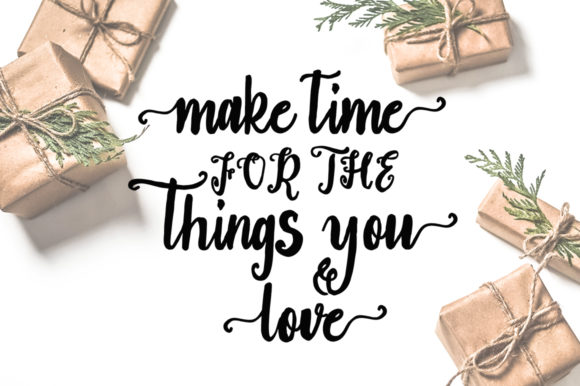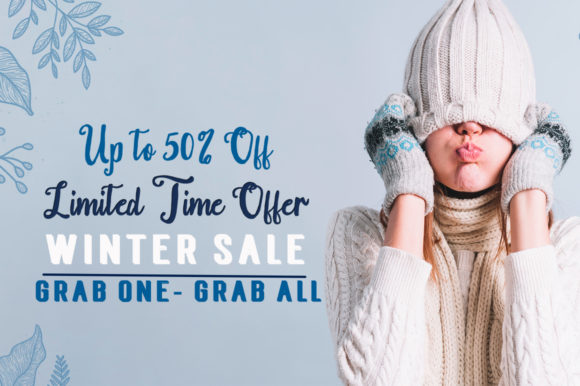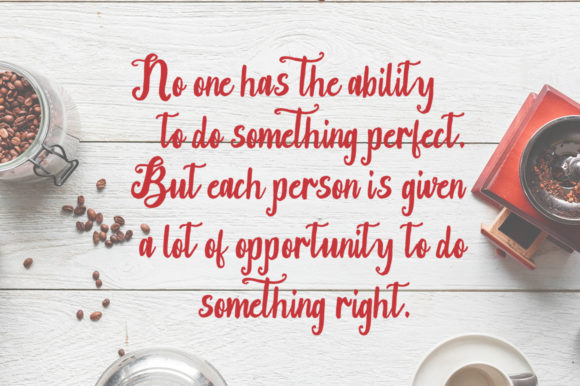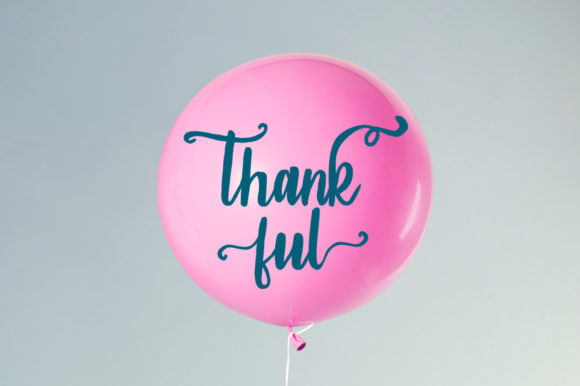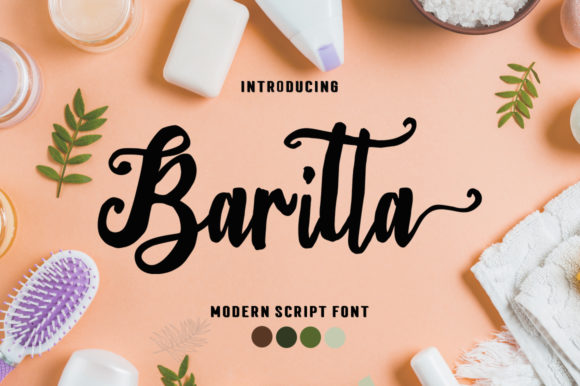
Discover the Whimsy of Baritta Font
As designers, we’ve all been there – staring at a blank page, waiting for inspiration to strike. The cursor blinks tauntingly, as we try to come up with the perfect idea. But then, it hits us – a flash of creativity that sets our imagination ablaze. For some, it’s a burst of color, while for others, it’s a specific font that sparks their imagination.
Enter Baritta Font, a charming and authentic calligraphy font that’s about to become your new best friend. With its wide range of applications, from crafting designs to headlines, Baritta Font is guaranteed to add a playful touch to your next project. Whether you’re a seasoned designer or just starting out, this versatile font is sure to delight. And with its PUA encoding, accessing its gorgeous glyphs and swashes is a breeze, making it a valuable addition to any designer’s toolkit.
Key Features of Baritta Font
- Font Type: Script font, with a handwritten feel
- Unique Characteristics: Distinctive, elegant script style with varied line widths and subtle flair at the ends of letters
Baritta Font Review
I recently had the chance to work with the Baritta Font, and I must say it’s an interesting addition to the world of typography. ✨ One of the things that I appreciate about this font is its unique blend of modern and vintage styles. The subtle curves and rounded edges give it a friendly feel that’s perfect for user-friendly interfaces and publications.
Another aspect that I found appealing was the variety of weights and styles available. ✨ This allows designers to experiment with different effects and create visually appealing combinations. Whether you’re going for a clean and minimalist look or a more elaborate and ornate design, Baritta Font has got you covered.
However, I did encounter some limitations while working with Baritta Font. ⚠️ The font’s readability can be compromised in smaller font sizes, which might be a concern for designers who need to convey complex information in a concise manner. Additionally, the font’s uniqueness can sometimes feel overwhelming, making it difficult to balance with other design elements.
While Baritta Font has its strengths and weaknesses, I believe it can be a valuable addition to any designer’s toolkit. With a little creativity and experimentation, it can be used to create stunning and memorable designs. However, it’s essential to weigh its limitations and consider the specific needs of your project before incorporating it into your design.
- Unique blend of modern and vintage styles
- Variety of weights and styles available
- Perfect for user-friendly interfaces and publications
- Can be overwhelming if not balanced with other design elements
- Readability can be compromised in smaller font sizes
Tip: Use the Baritta font to add a touch of elegance to your headings and titles in Canva.
Tip: Use the Baritta font to add a professional touch to your logos, branding materials, and graphics.
Tip: Use the Baritta font to add a touch of sophistication to your presentations and documents.
The Baritta font is ideal for:
Remember to use the Baritta font consistently throughout your design to create a cohesive and professional look.
Great Vibes is a beautiful, cursive script font that is perfect for use in creative and artistic projects. It features a flowing, handwritten feel that is ideal for use in titles, headings, and quotes. Compared to Baritta Font, Great Vibes has a more relaxed and casual feel, with a stronger emphasis on creativity and expression.